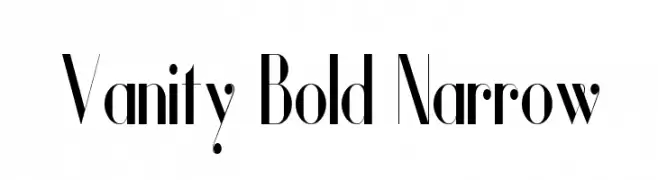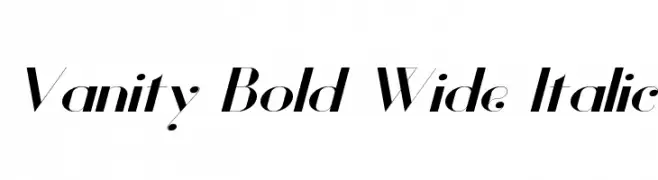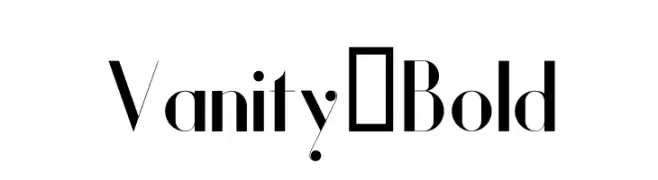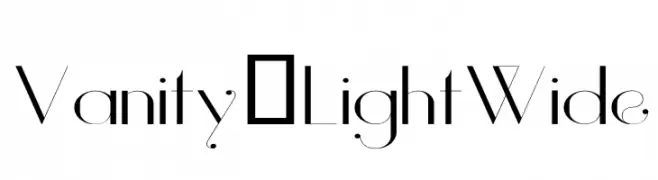
A sleek, high-contrast font with elegant curves and modern style.
A bold, high-contrast font with modern elegance and playful curves.
A bold, wide font with high contrast and modern elegance.
A bold, elegant font with high contrast and narrow letterforms.
A bold, wide, and italic font with high contrast and elegant curves.
A bold, narrow font with high contrast and elegant styling.
An elegant, light, narrow, and italicized font with high contrast and refined style.
A bold, italicized font with high contrast and modern elegance.
A sleek, narrow font with high contrast and modern elegance.
An elegant, high-contrast font with decorative elements and modern flair.